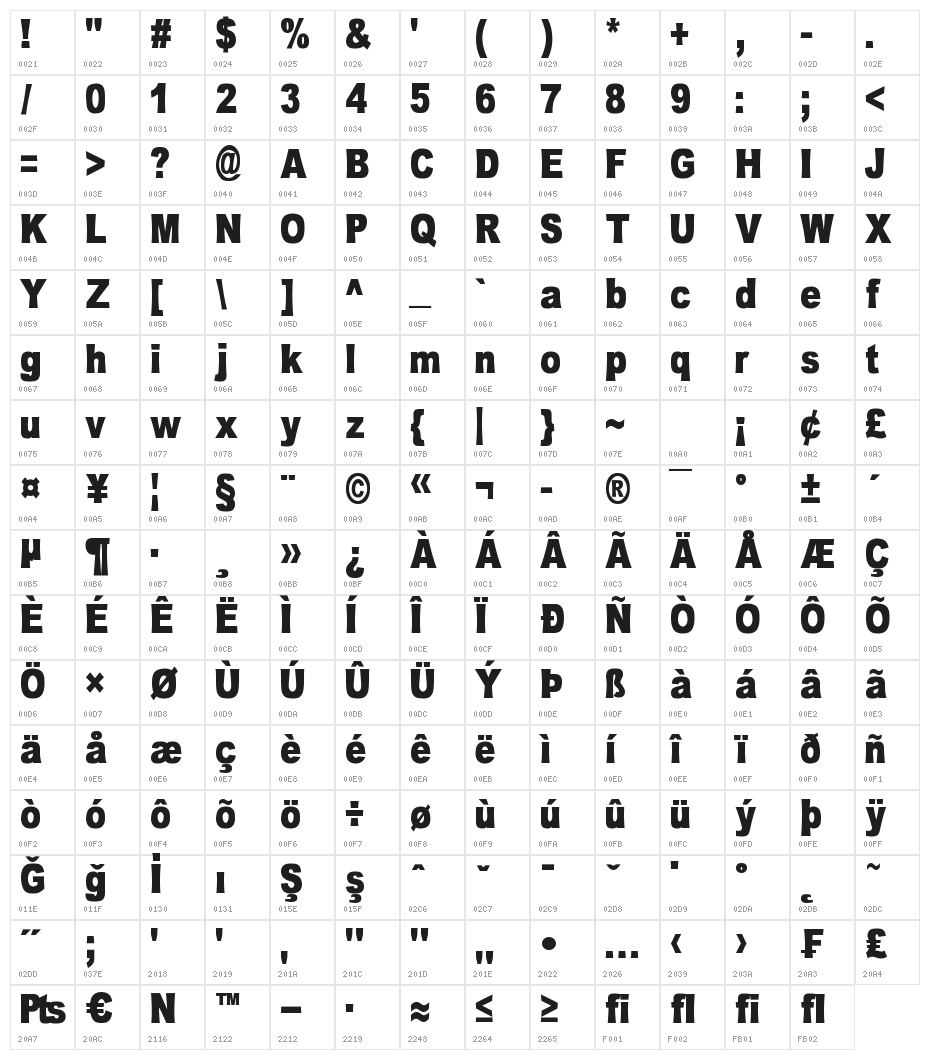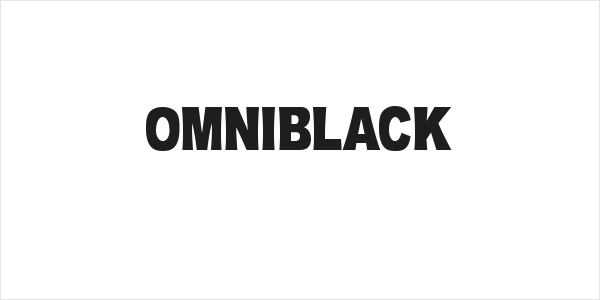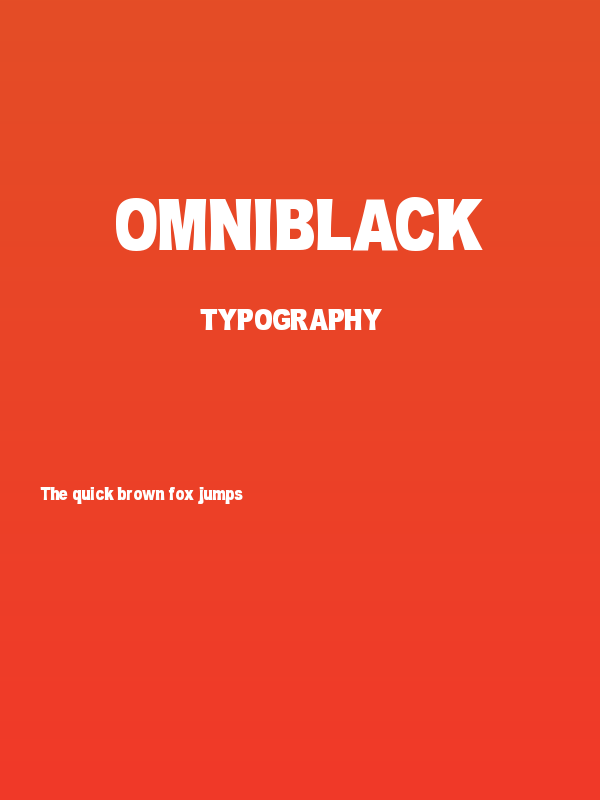
OMNIBLACK Font
OMNIBLACK Description
This font is characterized by its bold and impactful presence, featuring thick, uniform strokes that convey strength and confidence. The uppercase and lowercase letters are designed with a consistent weight, ensuring readability and a strong visual impact. The numbers and special characters maintain the same boldness, making them suitable for attention-grabbing designs. The overall appearance is clean and modern, with a slight emphasis on geometric shapes, providing a balanced and structured look.
| Proposed Projects | Ideal for headlines, posters, branding materials, and any design requiring a strong visual impact. |